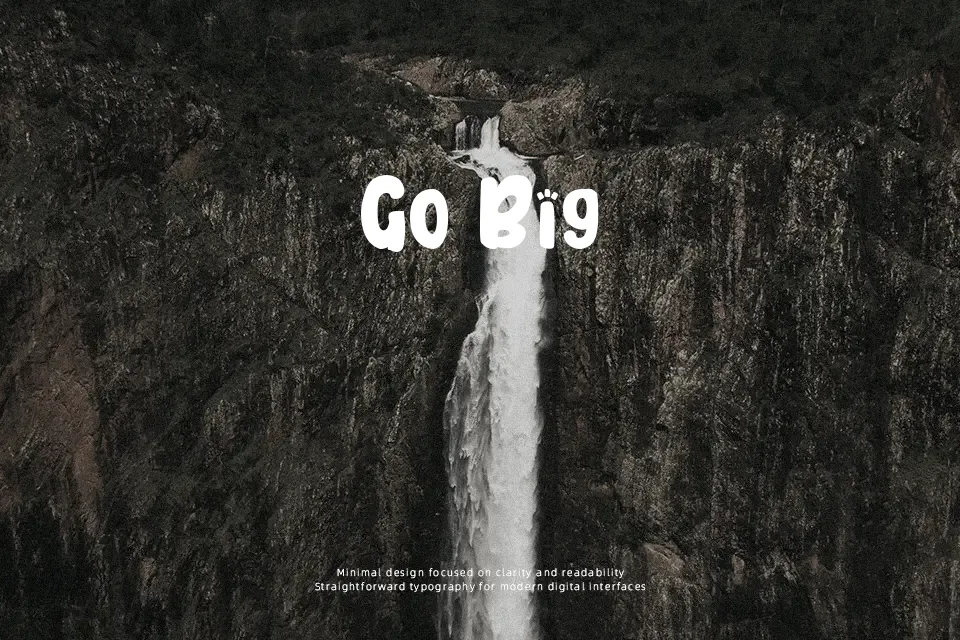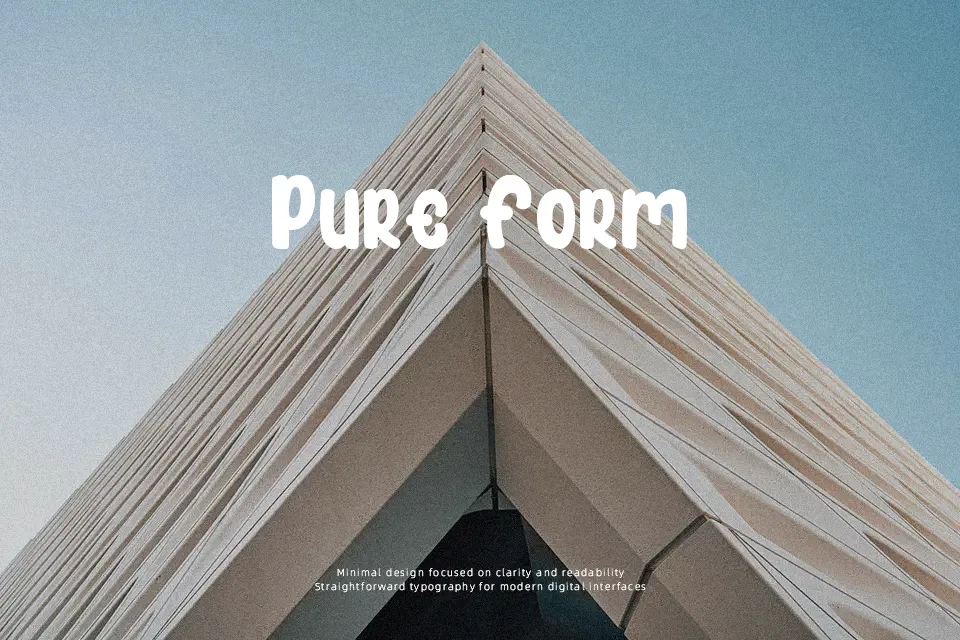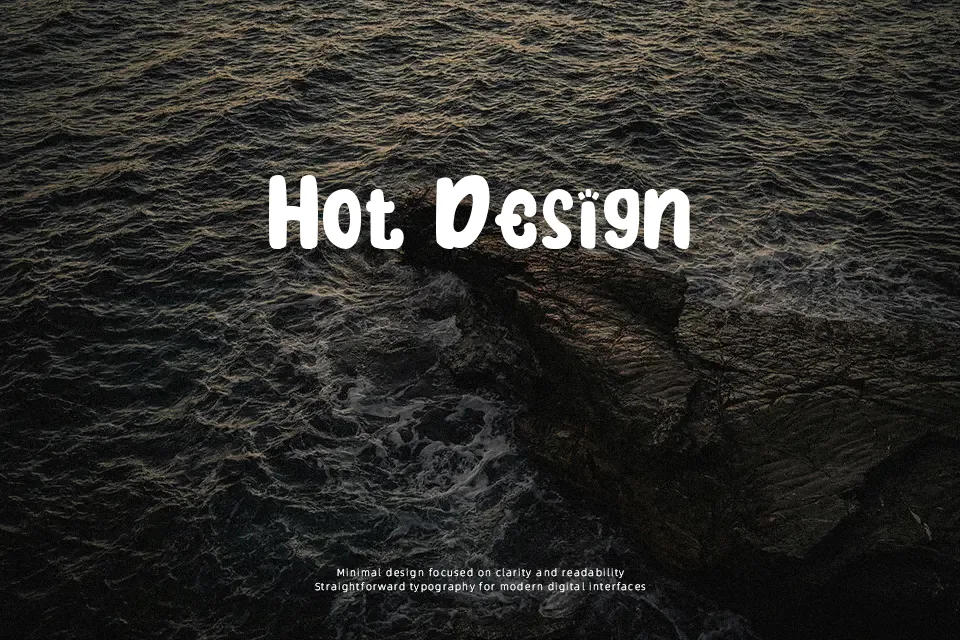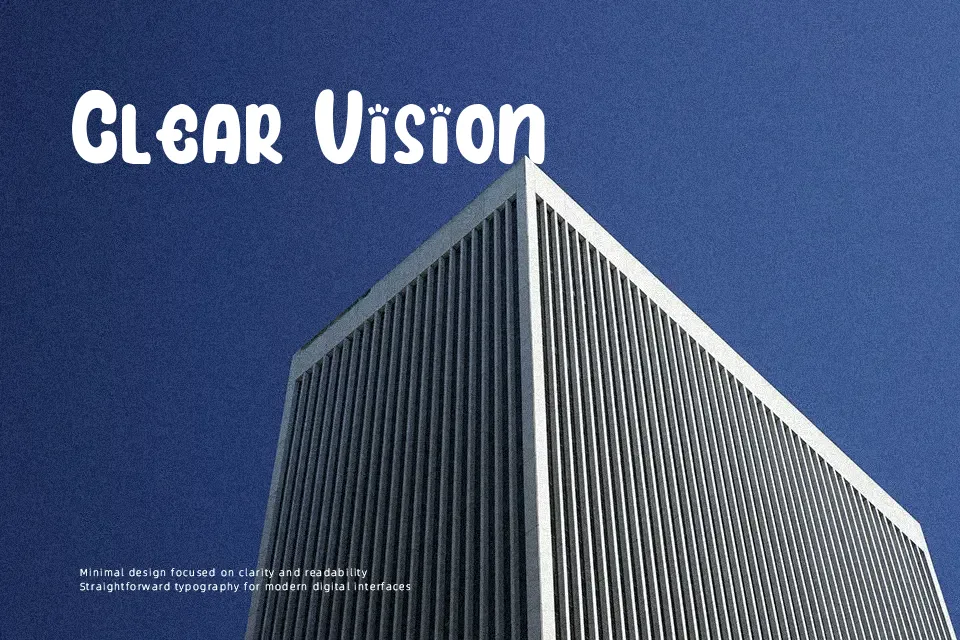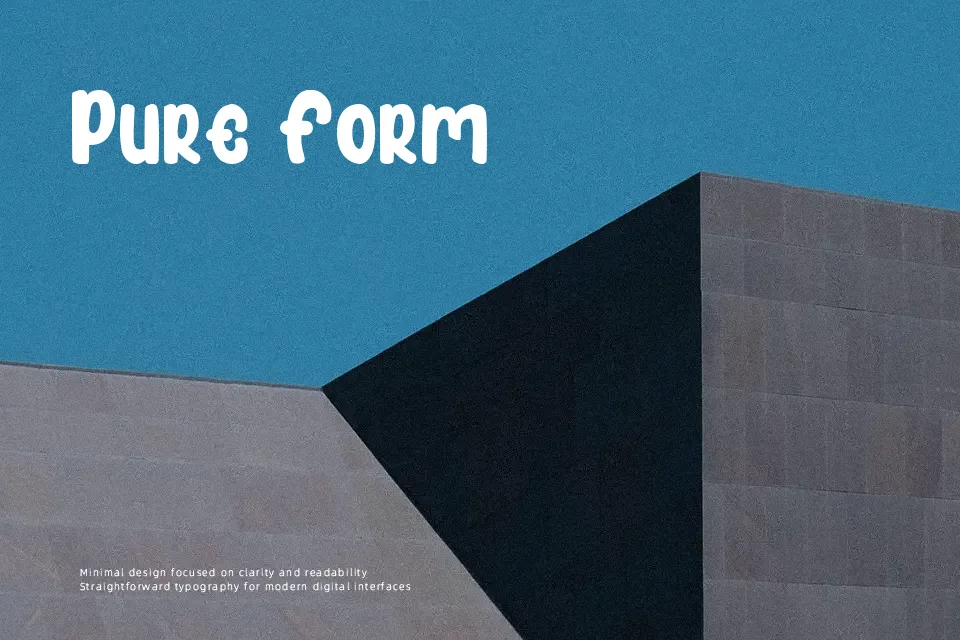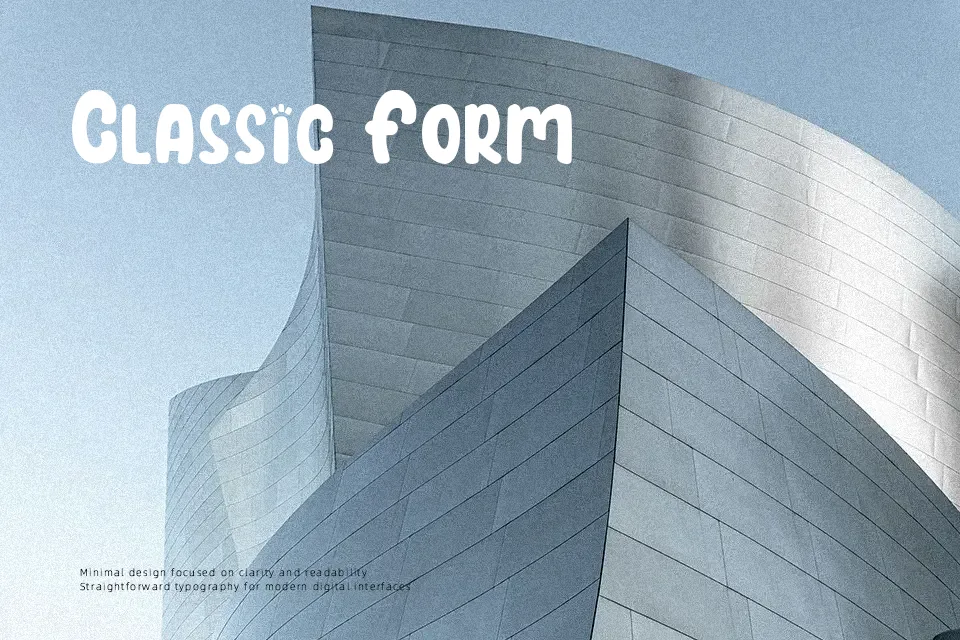
Bubble Kids Font
Designed by Kong Font
Bubble Kids Font features thick, rounded strokes, loose spacing, and exaggerated curves that give each letter a soft, inflated look on the page. The structure leans more decorative than formal, with a cartoonish rhythm that keeps words readable at larger sizes while still feeling energetic and a bit mischievous. It fits nicely in kids’ logos, party invitations, classroom visuals, and character-based packaging where you want text to feel like part of the illustration rather than a neutral label. In small body copy, long paragraphs, or serious editorial layouts, the same bouncy shapes can become tiring and distracting, so it works best as a bold headline accent rather than everyday text. If you know other round, comic-style display fonts, this one sits on the more playful, balloon-like end of that spectrum.
kids party invitations and birthday banners
playful children’s logos and branding
cartoon-style poster headlines and YouTube thumbnails
bright classroom signs and learning materials
long paragraphs or dense body text
formal business branding or corporate documents
serious news, academic, or editorial layouts
small UI labels or accessibility-critical interfaces
Perfect for gaming, kids, and logo, with a bold and cartoon style.